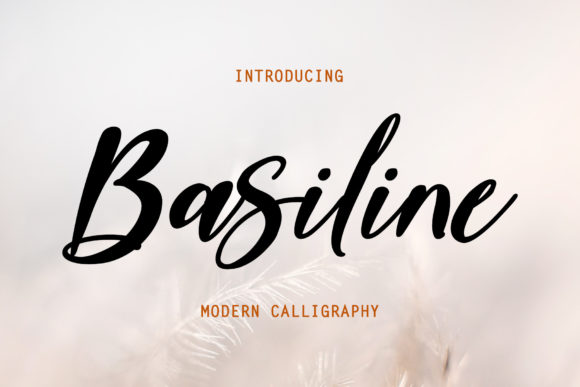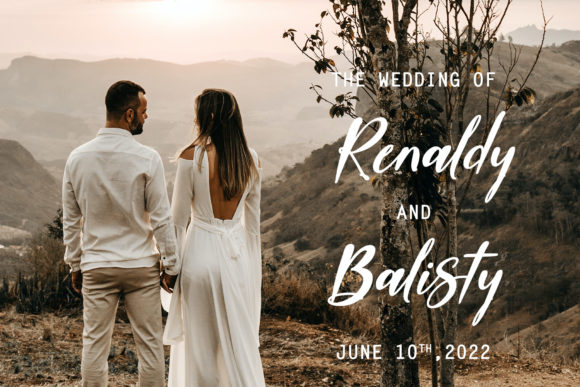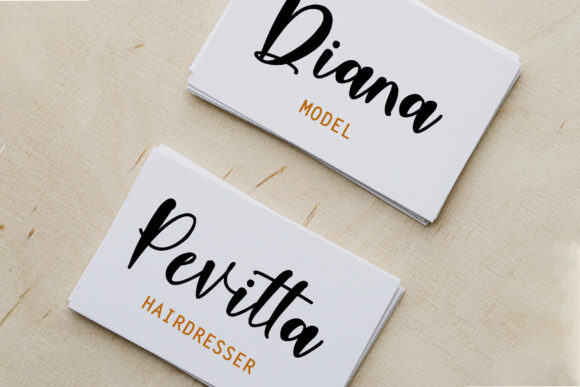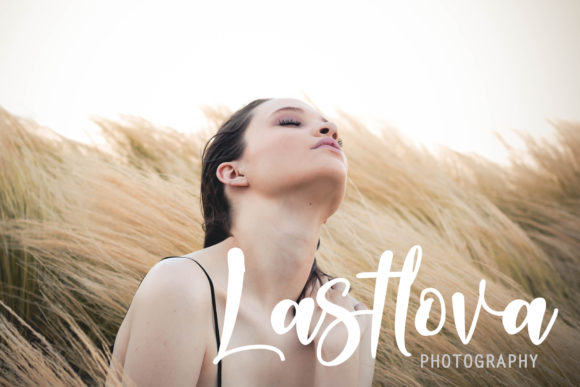
About Basiline Font
Basiline is a relaxed and delicate script font that exudes a fashionable and luxurious vibe. With its elegant curves and stylish flourishes, this font is the perfect choice for adding a touch of sophistication to your design projects. Whether you’re working on branding, packaging, invitations, or any other creative endeavor, Basiline will elevate your designs and make them truly stand out.
The relaxed and delicate nature of Basiline font gives it a graceful and refined appearance. Its smooth and flowing letterforms create a sense of elegance and beauty, making it suitable for a wide range of design applications. From high-end fashion to upscale events, Basiline font adds a touch of luxury and class.
Basiline font is PUA encoded, which means that you can easily access all of the glyphs and swashes it offers. This allows you to explore and experiment with various stylistic alternatives and decorative elements, adding even more versatility and customization to your designs. With Basiline, you have the freedom to create unique and eye-catching compositions that perfectly match your creative vision.
The fashionable and trendy aesthetic of Basiline font makes it a versatile choice for a variety of design projects. Whether you’re aiming for a modern and minimalistic look or a more ornate and decorative style, Basiline can adapt to your needs. Its versatility allows it to be used in branding, logo design, social media graphics, wedding invitations, and much more.
By incorporating Basiline font into your design projects, you can instantly add a touch of luxury and sophistication. Its relaxed and delicate nature, combined with the fashionable script style, creates a visually appealing and memorable impact. With Basiline font, you can create stunning designs that captivate and inspire your audience.
In summary, Basiline is a relaxed, delicate, and fashionable script font that adds a luxury spark to your design projects. With its PUA encoding, you have easy access to a wide range of glyphs and swashes for added customization. Embrace the elegance and versatility of Basiline font and let it enhance your designs with its stylish and sophisticated appeal.